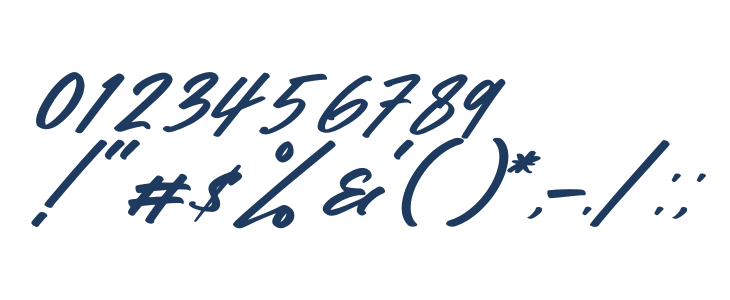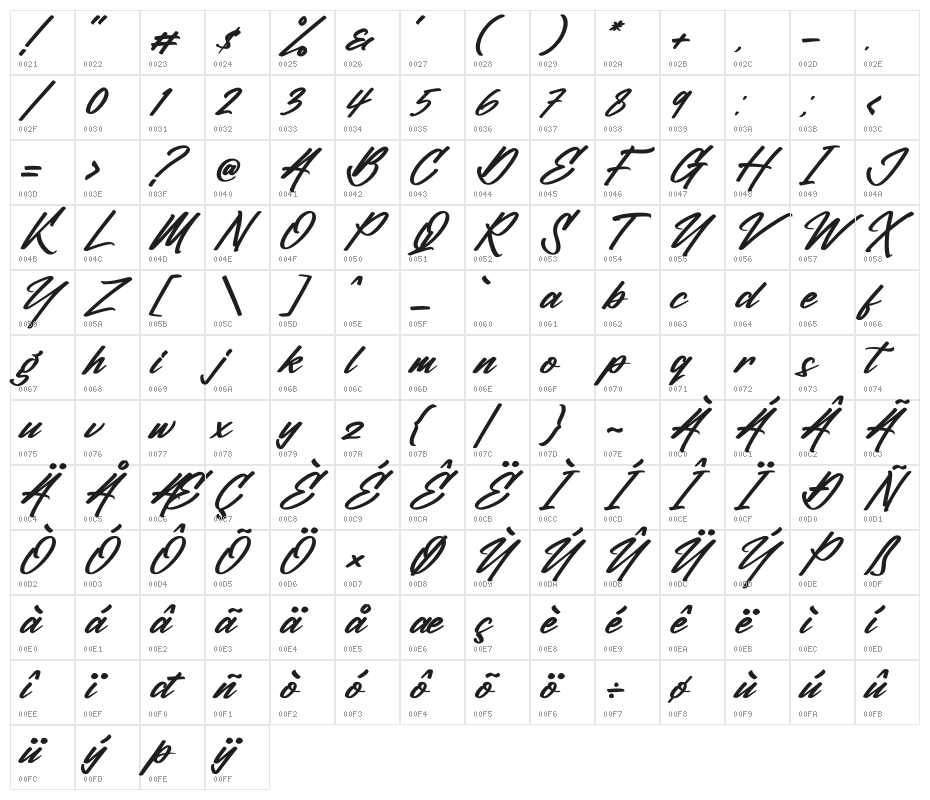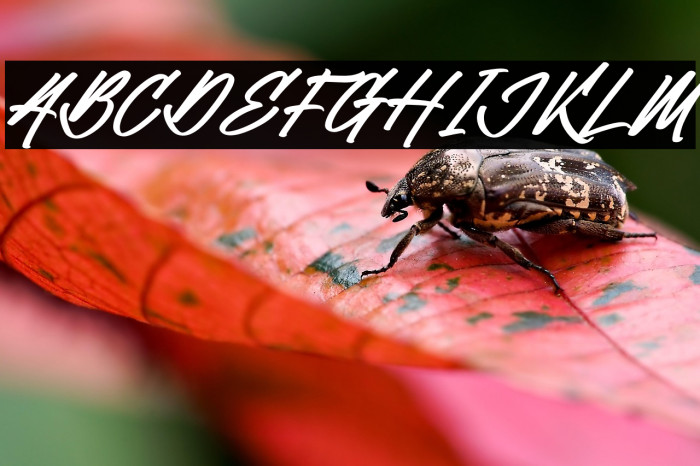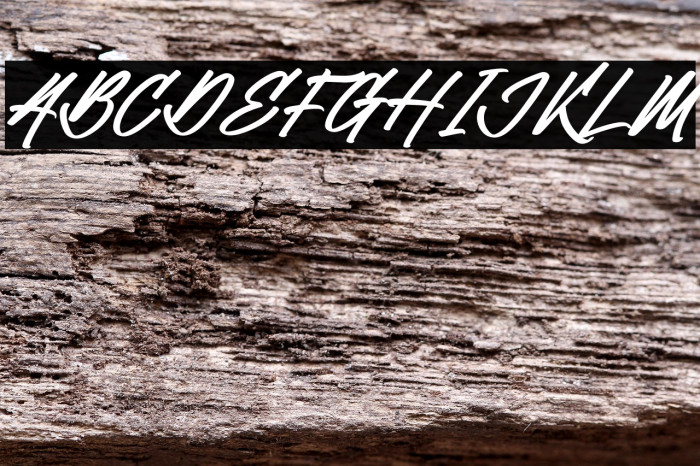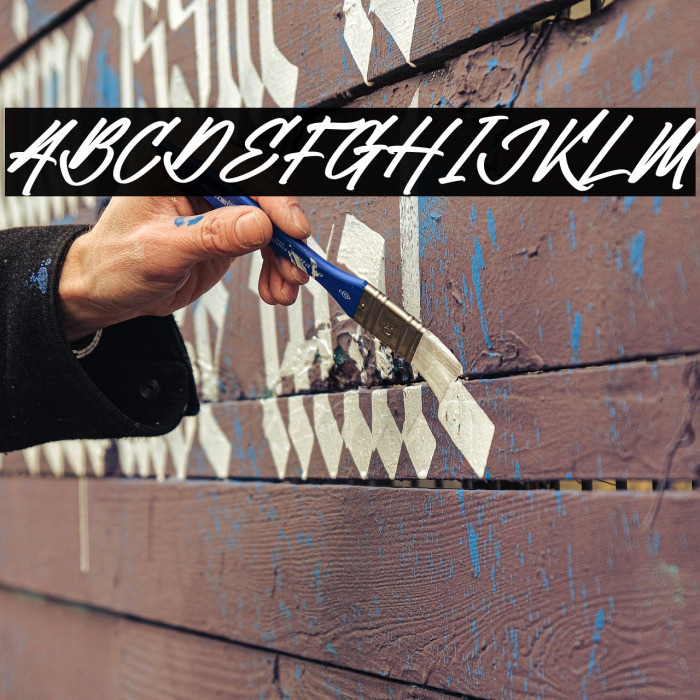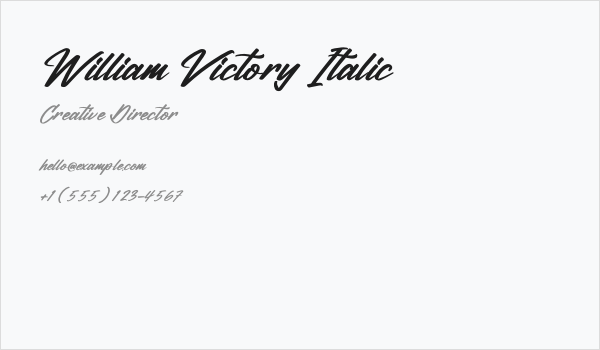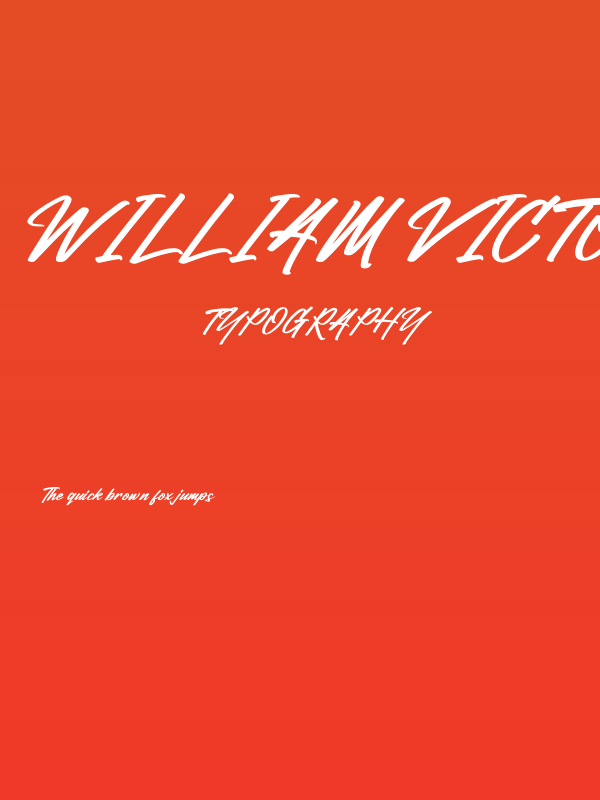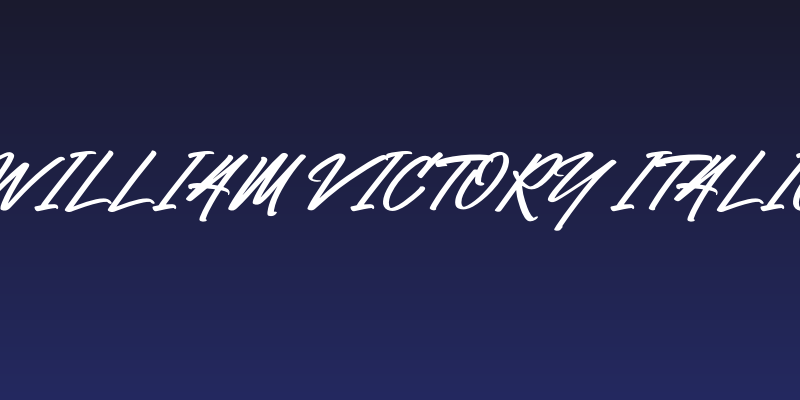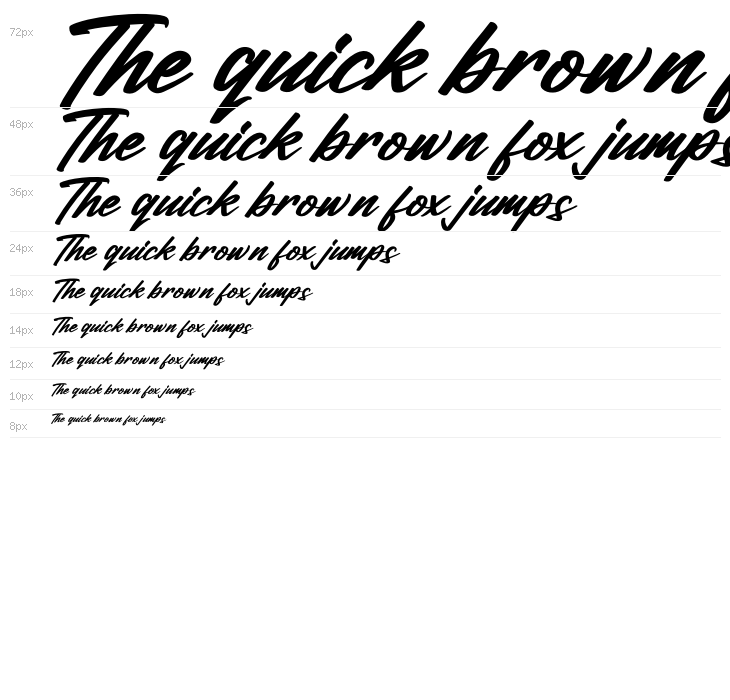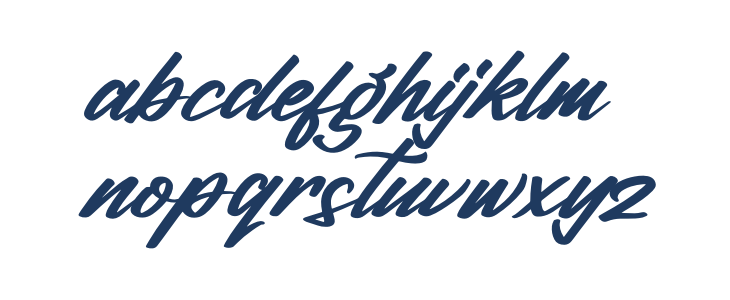
William Victory Italic Font
William Victory Italic Description
This font exudes a dynamic and energetic style with its italicized, cursive script. The letters are connected, creating a fluid and continuous flow that mimics natural handwriting. The strokes are bold and confident, with a slight slant that enhances its expressive nature. The uppercase letters maintain a consistent height, while the lowercase letters exhibit a playful bounce, adding to the font's lively character. Numbers and special characters are designed with the same boldness and fluidity, ensuring a cohesive look across all elements. This font is perfect for projects that require a personal touch or a sense of movement and vitality.